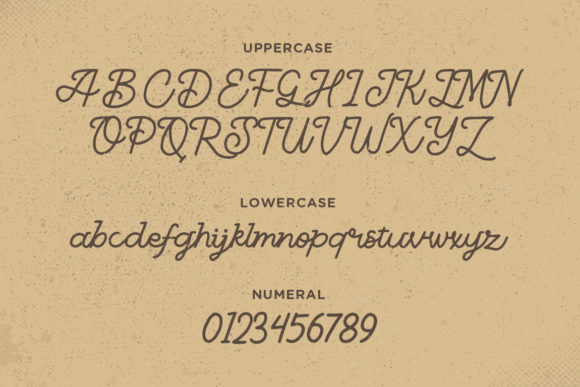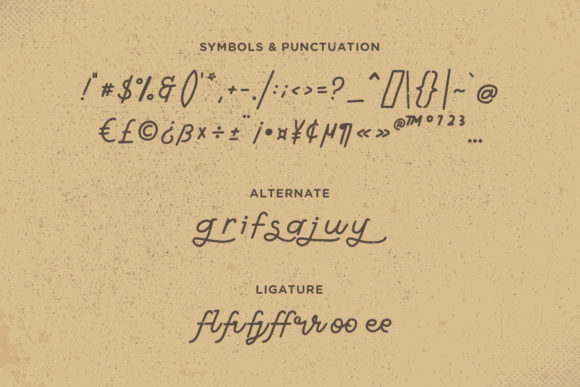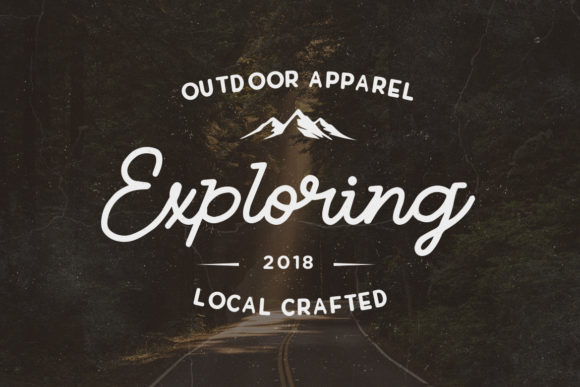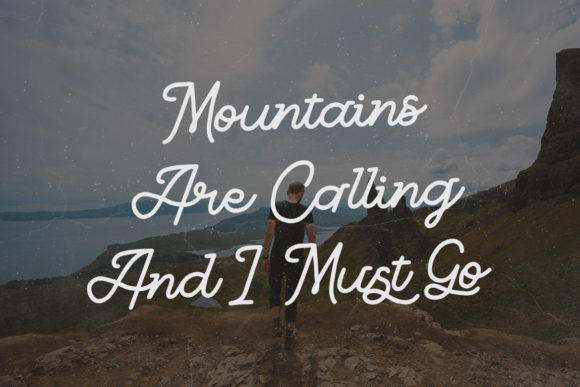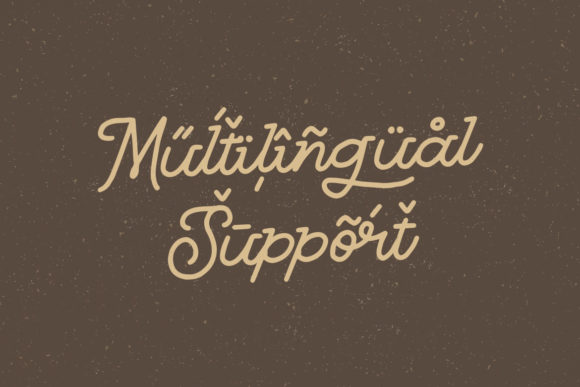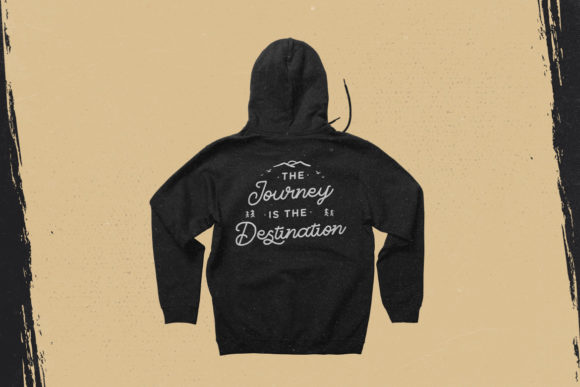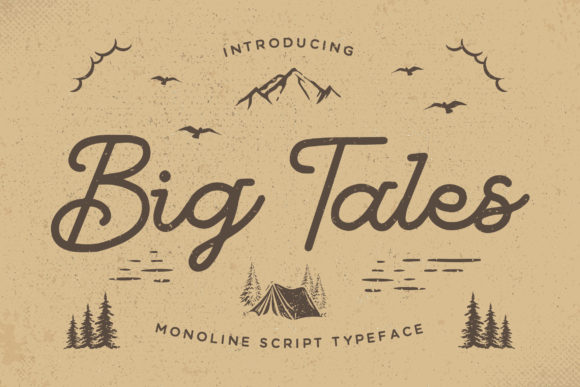
The Big Tales Font: A Vintage Beauty for Your Designs
I’ll never forget the time I was working on a fashion branding project, and my client asked me to create a logo that exuded elegance and sophistication. I spent hours scouring font libraries, but nothing seemed quite right. That was until I stumbled upon Big Tales, a beautiful, well-balanced, and vintage-styled script font. It was love at first sight! 💕
- ✨ Smooth curves and elegant lines that scream sophistication
- ✅ Perfect for fashion branding, editorial designs, and high-end projects
- 💫 Works beautifully in both digital and print formats
- 🎨 Highly versatile, with plenty of OpenType features to experiment with
While Big Tales is an amazing font, there are a few things to keep in mind:
- ⚠️ May not be the best choice for body text, as it’s quite ornate
- 🤔 Some characters may not work well in very small sizes
- Experiment with OpenType features, such as glyphs and stylistic alternates, to add some extra flair
The Story Behind Big Tales
Big Tales was designed by a team of typographers who wanted to create a font that would evoke the elegance and sophistication of vintage scripts. Inspired by classic fashion magazines and editorial designs, they crafted a font that would be perfect for high-end branding and creative projects.
Q: Is Big Tales suitable for body text?
A: While Big Tales is a beautiful font, it’s not ideal for body text due to its ornate nature. It’s best used for headlines, titles, or short paragraphs.
Q: Does Big Tales come with OpenType features?
A: Yes, Big Tales includes a range of OpenType features, such as glyphs, stylistic alternates, and more. These features allow you to customize your text and add extra flair to your designs.
Q: Is Big Tales easy to read?
A: Big Tales is a script font, which can sometimes make it more challenging to read. However, its elegant lines and smooth curves make it easy on the eyes, even at larger sizes.